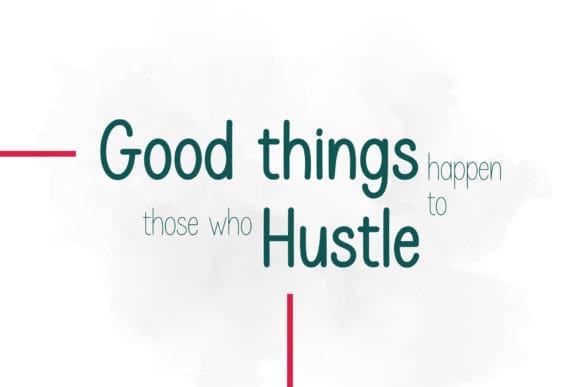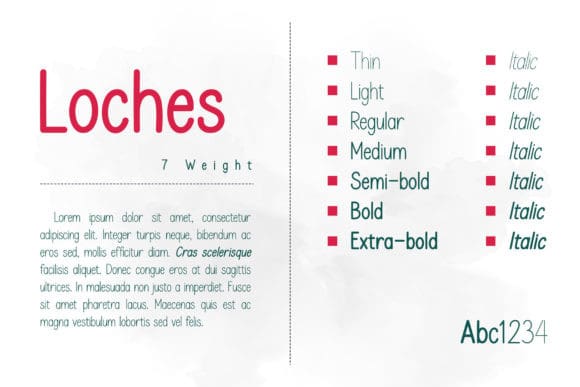
Loches Font
Loches Font is a clean and modern sans serif font. This font is perfect for quotes, headings, blogs, logos, invitations, weddings, watermark, social media posts, product packaging, product designs, label, special events and more!